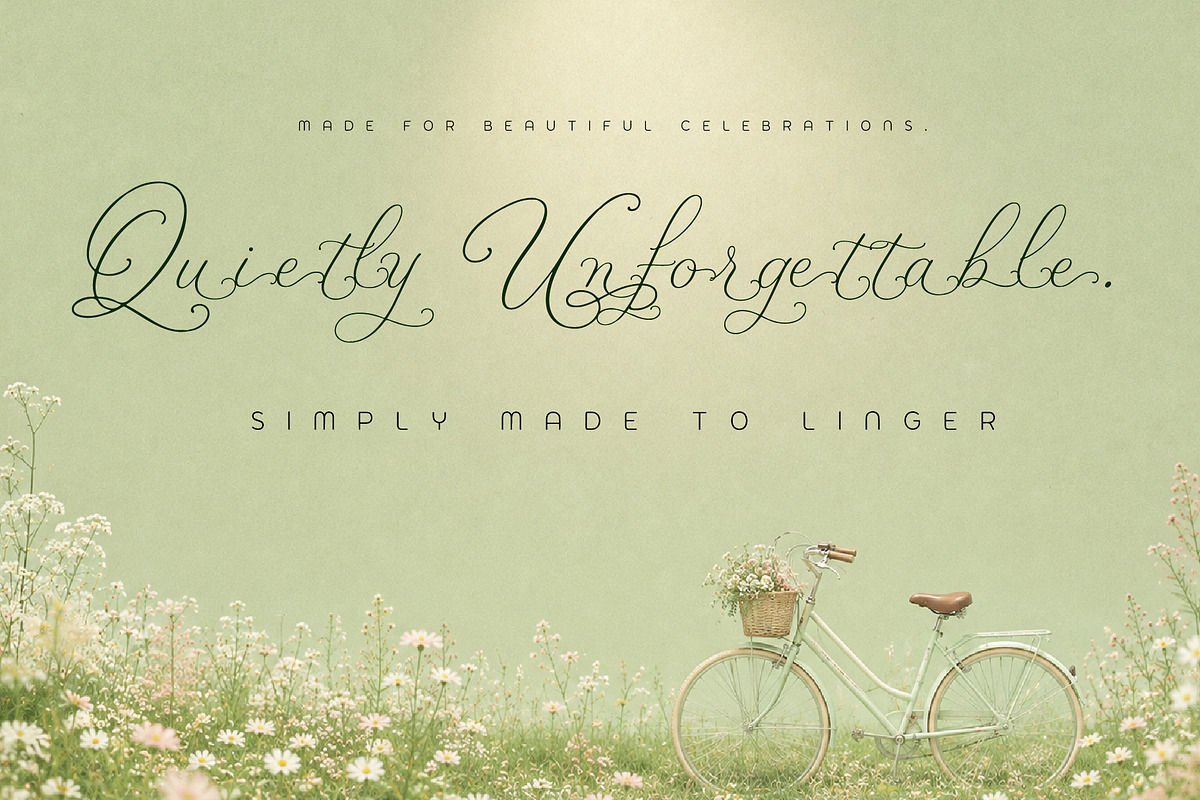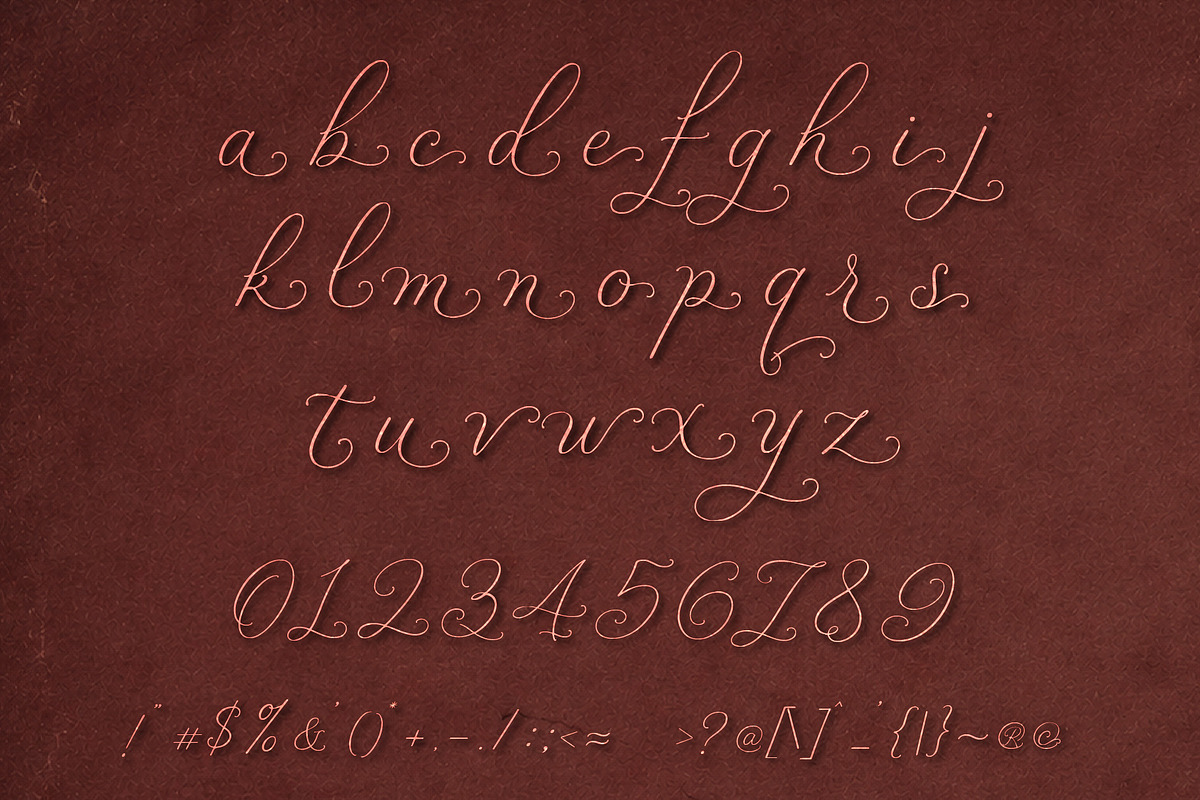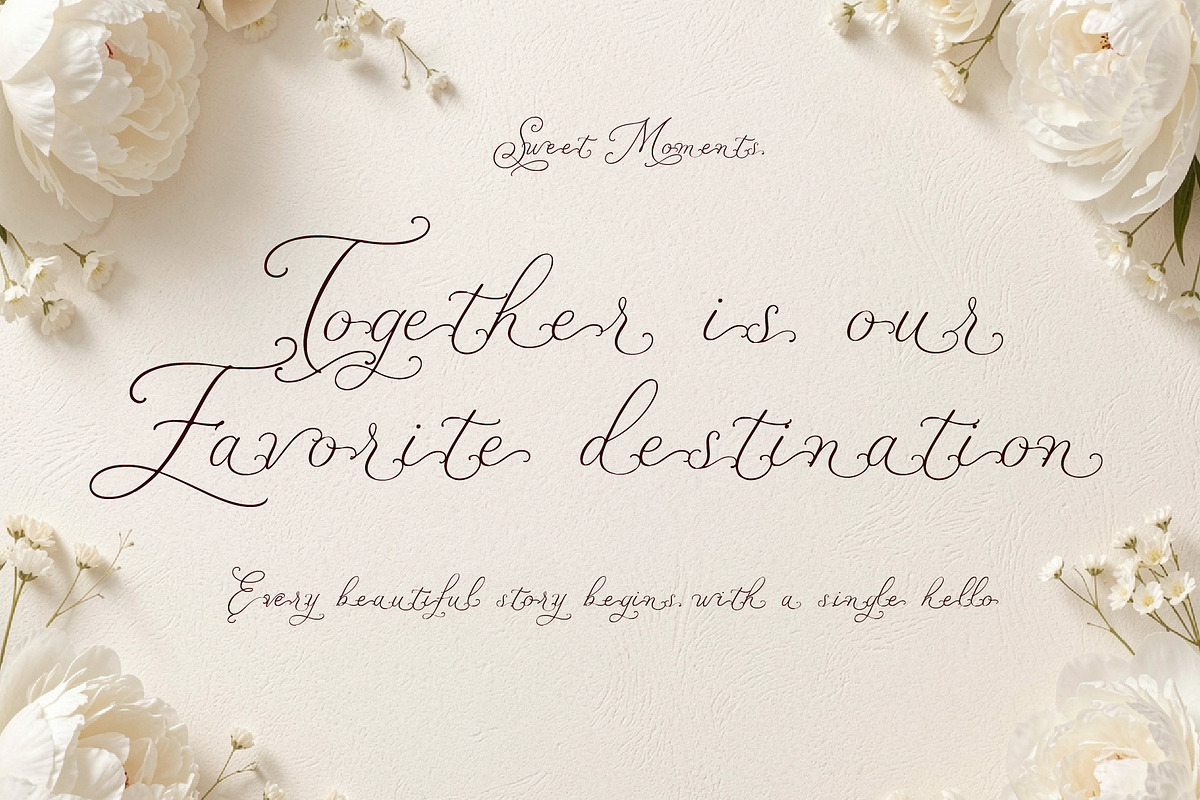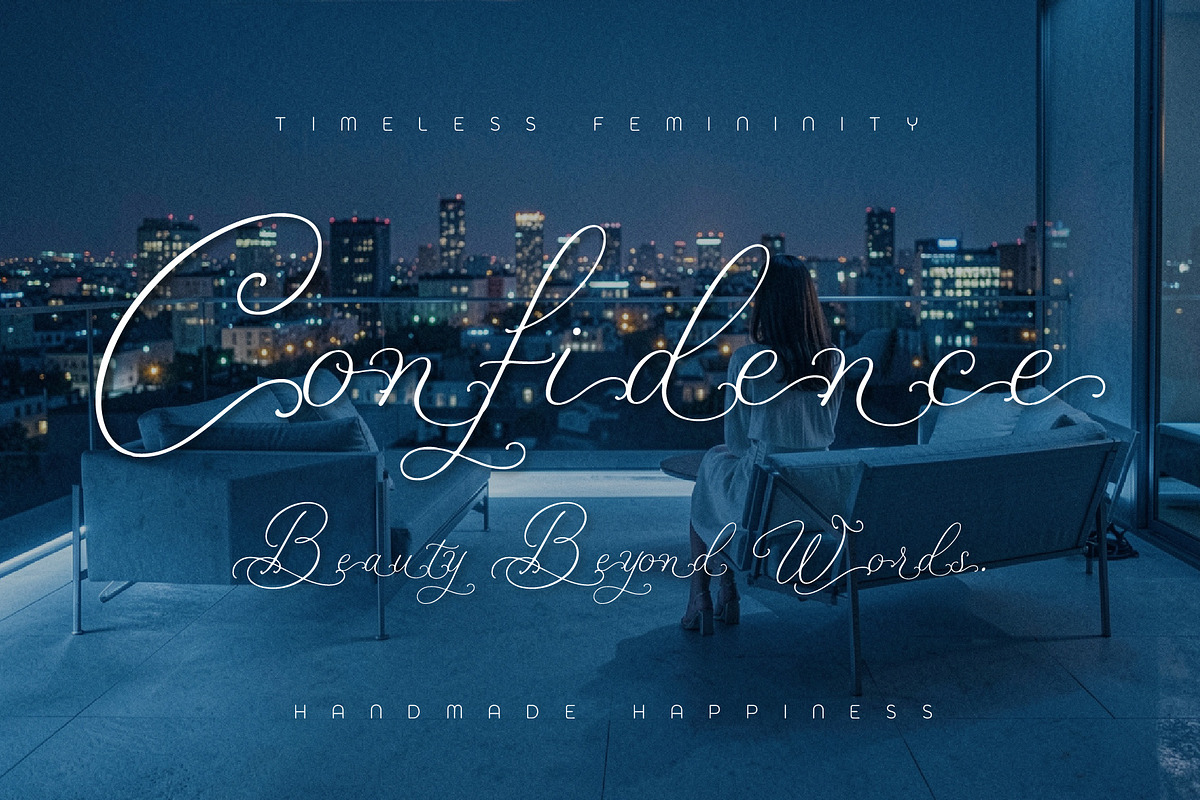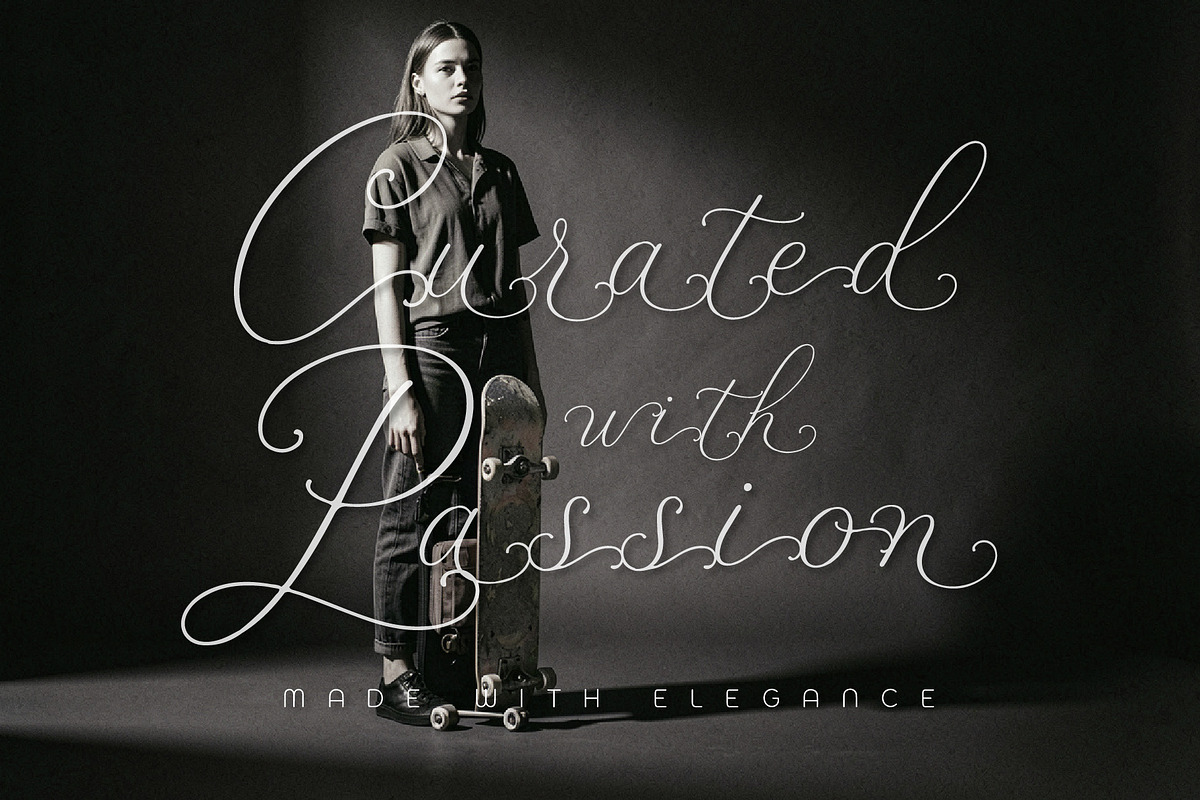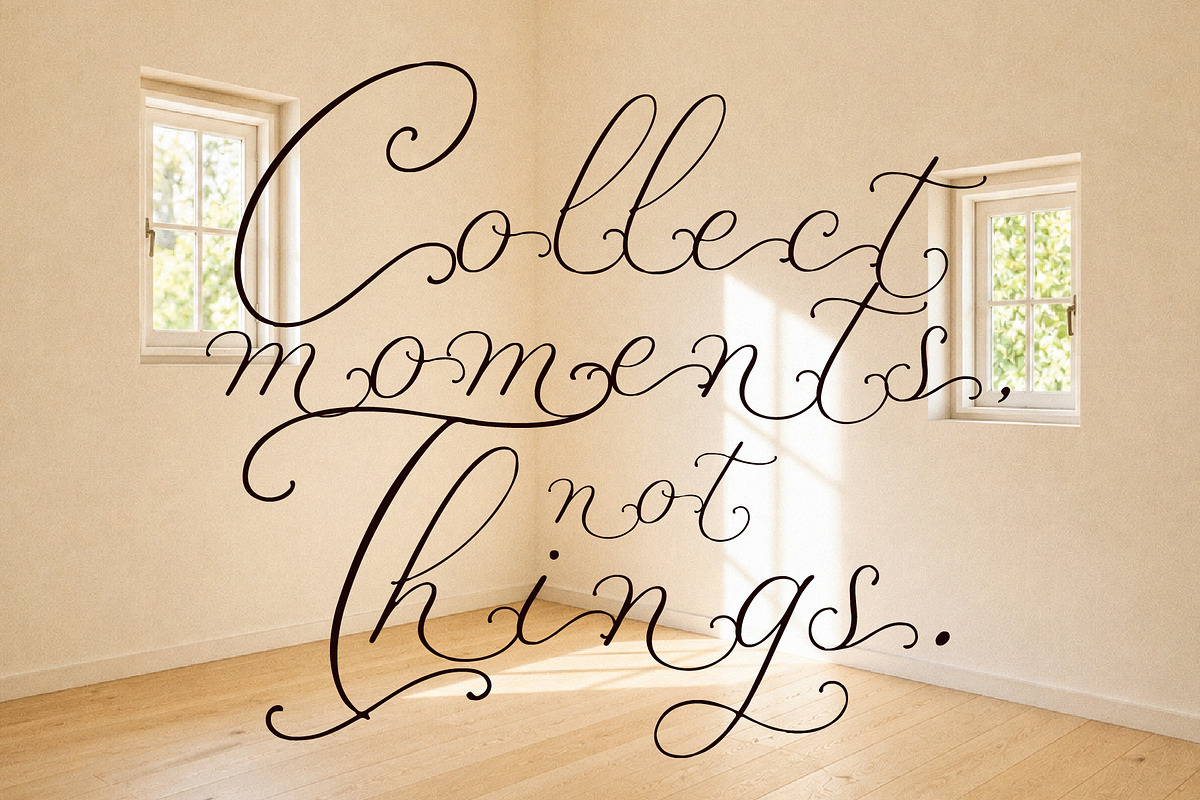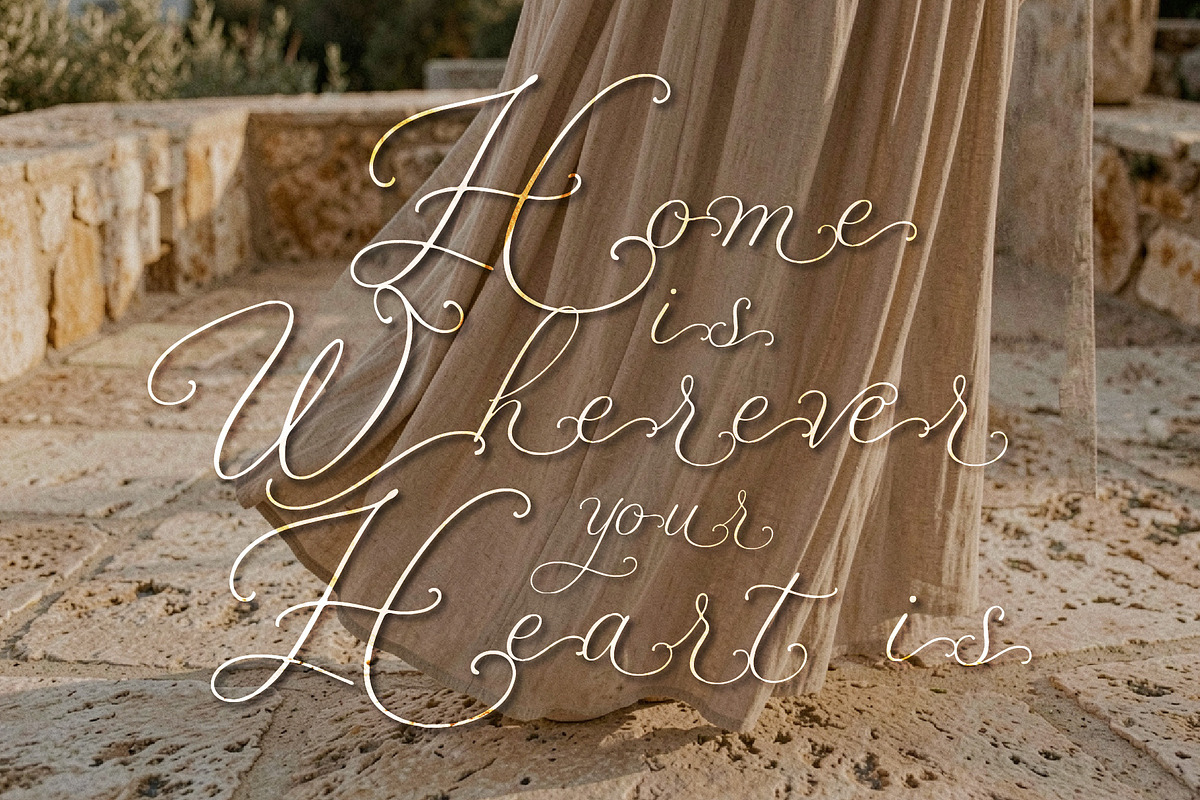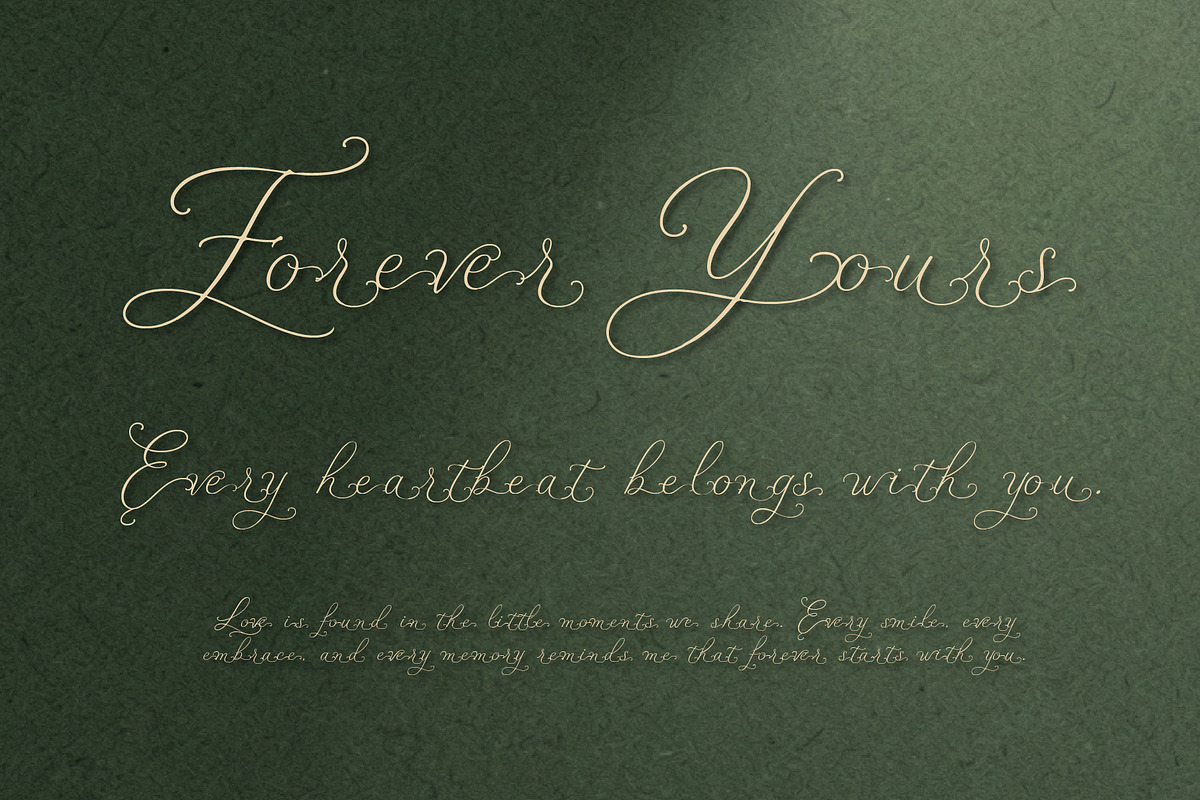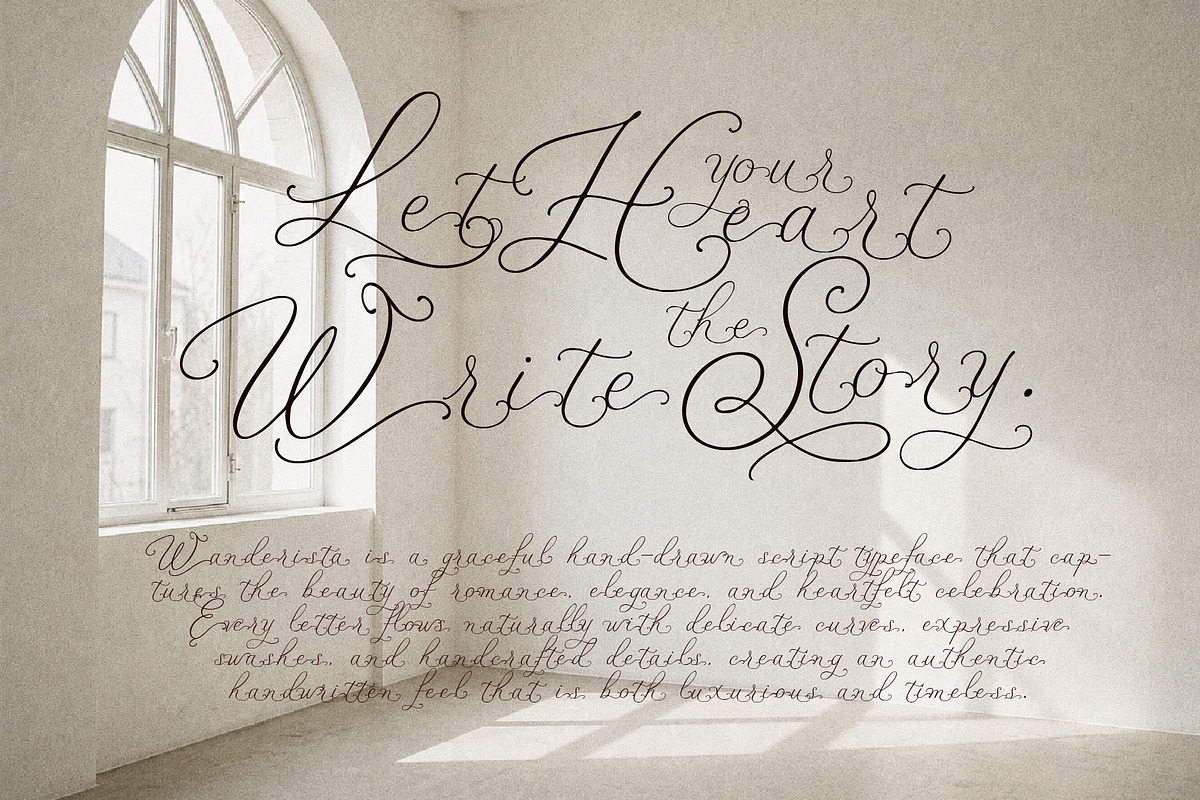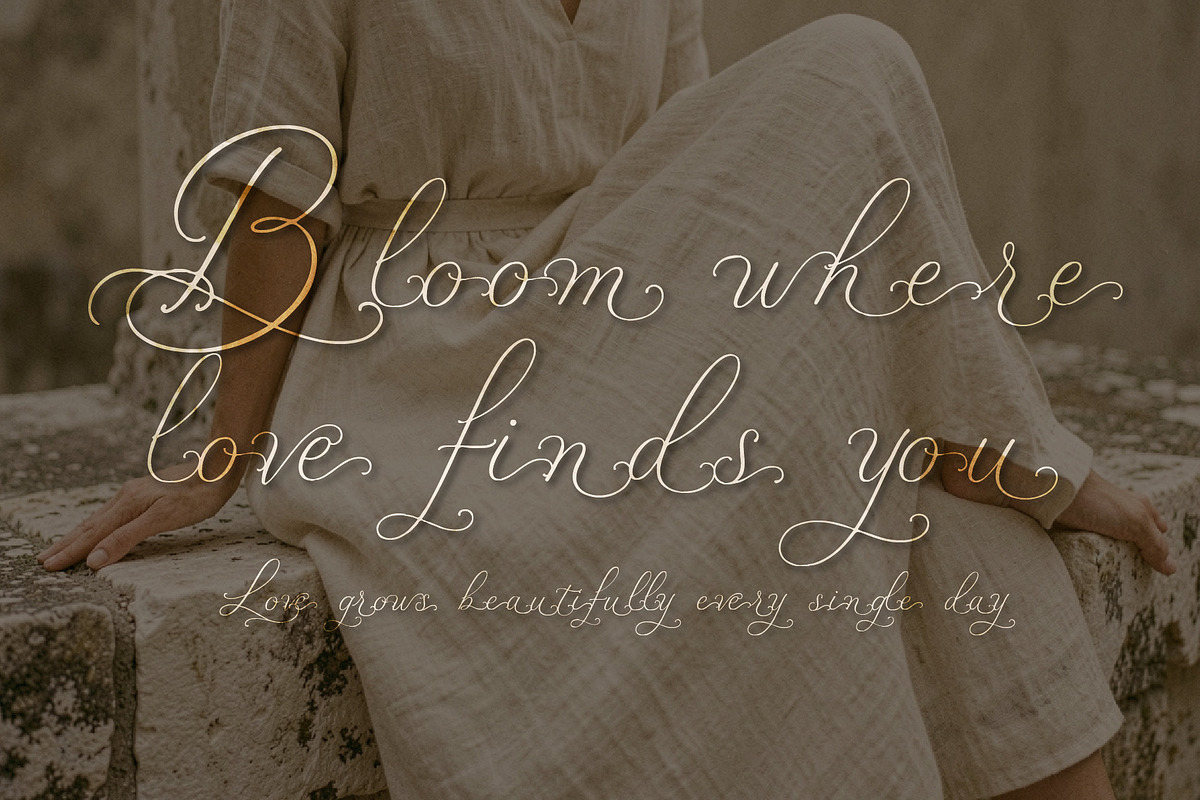
Wanderista - Handwritten Love
Wanderista is a graceful hand drawn script typeface that captures the beauty of romance, elegance, and heartfelt celebration. Every letter flows naturally with delicate curves, expressive swashes, and handcrafted details, creating an authentic handwritten feel that is both luxurious and timeless.
Designed for wedding invitations, branding, beauty products, feminine logos, photography watermarks, fashion editorials, floral boutiques, jewelry packaging, social media, greeting cards, and premium stationery, Wanderista brings warmth and sophistication to every design.
Its smooth connections and elegant rhythm make it perfect for creating memorable headlines, romantic quotes, signature logos, and stylish branding. Whether you're designing for a luxury wedding, a beauty brand, or a romantic editorial, Wanderista adds a touch of charm, personality, and effortless elegance.